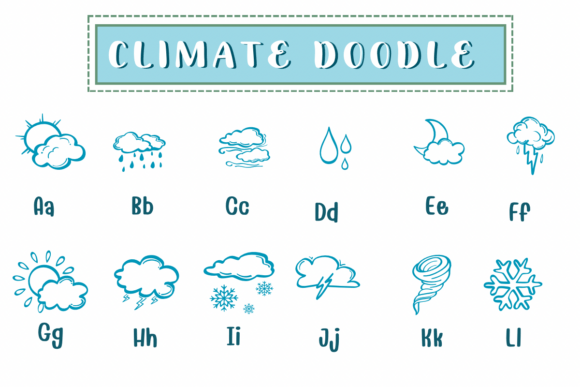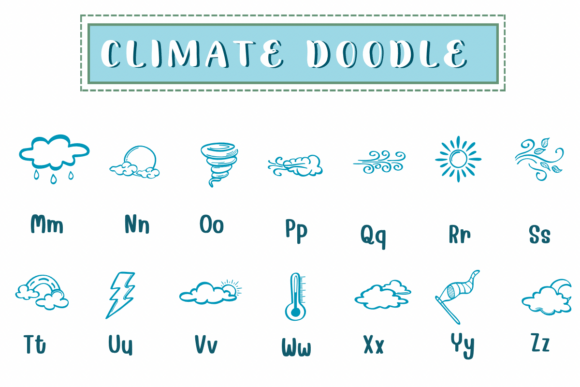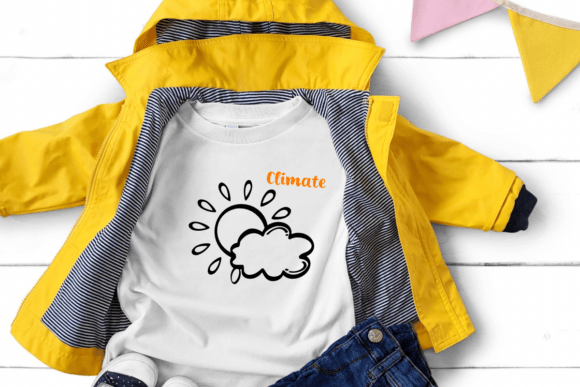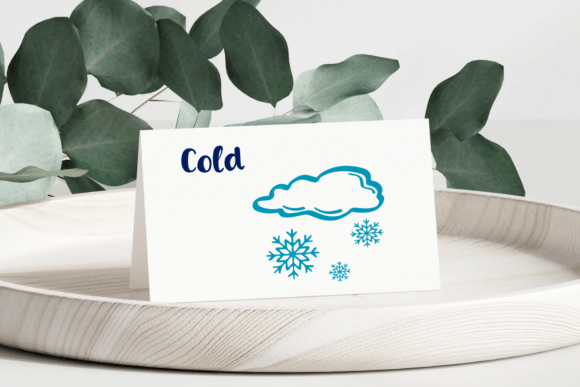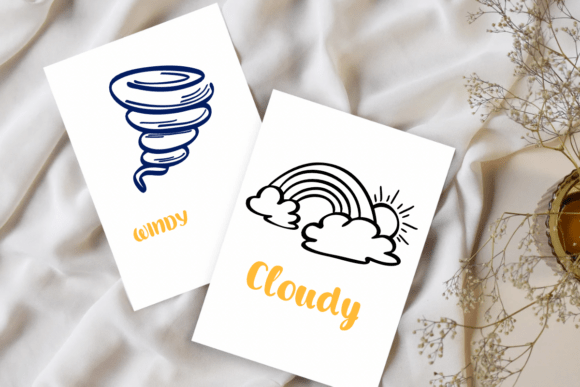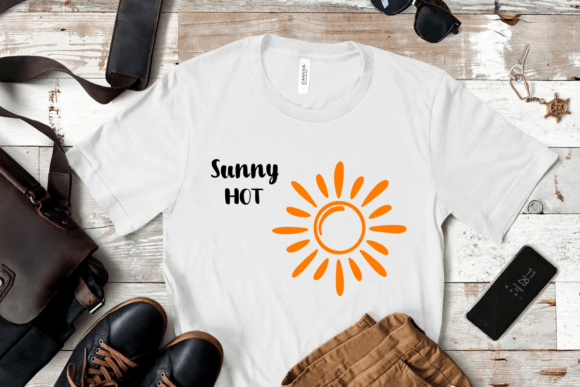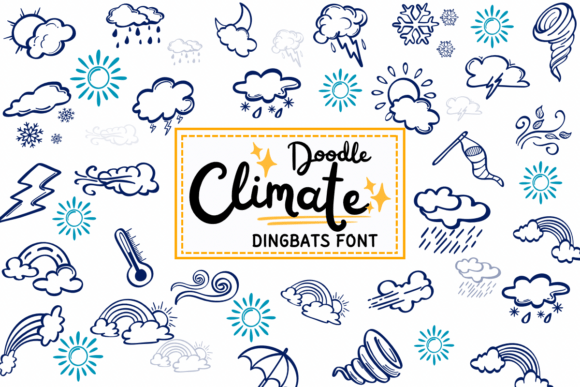
Introducing Climate Doodle Font: The Ultimate Dingbats Font for Weather and Climate Enthusiasts
Are you a designer, educator, or crafter looking for a unique and engaging way to add weather and climate symbols to your projects? Look no further than the Climate Doodle Font, a charming dingbats font that offers a full set of hand-drawn weather icons. From sunny skies to rainy days, this versatile font has everything you need to create visually appealing and informative designs.
What is Climate Doodle Font?
Climate Doodle Font is a specially designed dingbats font that features a wide range of weather-related symbols, including suns, clouds, rain, snow, lightning, and more. Each icon is carefully hand-drawn to give it a charming and whimsical feel, making it perfect for use in educational materials, planners, and climate awareness campaigns.
Key Features of Climate Doodle Font
- Hand-drawn weather icons: Each symbol is carefully crafted to give it a unique and charming feel.
- Full set of weather symbols: From suns and clouds to rain and snow, this font has everything you need to create comprehensive weather charts and designs.
- Versatile and adaptable: Use Climate Doodle Font in a variety of projects, from educational materials and planners to climate awareness campaigns and more.
Uses for Climate Doodle Font
Climate Doodle Font is an incredibly versatile font that can be used in a wide range of projects, including:
- Weather charts and graphs: Add a touch of personality to your weather forecasts and charts with this charming font.
- Educational materials: Use Climate Doodle Font to create engaging and informative lesson plans, worksheets, and activity sheets.
- Planners and organizers: Add a fun and functional touch to your planners and organizers with this weather-themed font.
- Climate awareness campaigns: Use Climate Doodle Font to create eye-catching and effective campaign materials, from posters and flyers to social media graphics and more.
Climate Doodle Font offers a range of benefits for designers and crafters, including:
- Unique and engaging designs: Stand out from the crowd with this charming and whimsical font.
- Time-saving: With a full set of pre-designed weather symbols, you can create comprehensive designs in no time.
- Cost-effective: Get a wide range of weather symbols for a fraction of the cost of hiring a designer or purchasing multiple fonts.
Climate Doodle Font is the ultimate dingbats font for weather and climate enthusiasts. With its charming hand-drawn weather icons, versatile design, and ease of use, this font is perfect for designers, educators, and crafters looking to add a touch of personality to their projects. Whether you’re creating weather charts, educational materials, or climate awareness campaigns, Climate Doodle Font has everything you need to create visually appealing and informative designs.